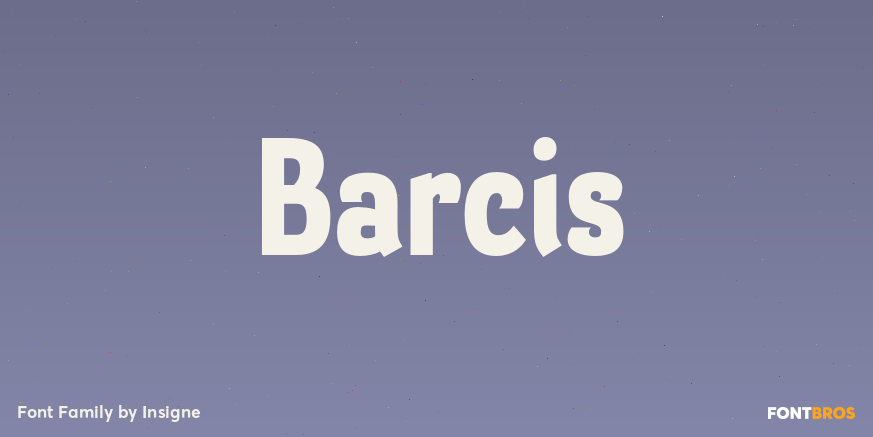
Barcis
About Barcis
Take your reader far away to a tropical morning, where the inviting aroma of a fresh roast introduces them to a gentle breeze and the first, warm light of day. Take them there with Barcis. This organic face with its tall x-height and neo-humanist attributes…